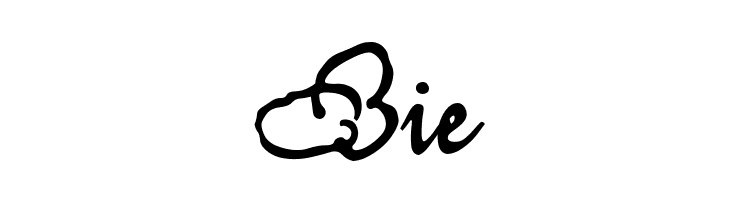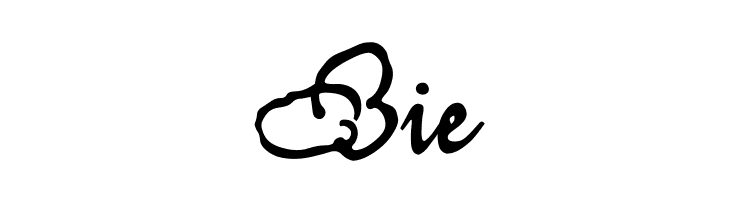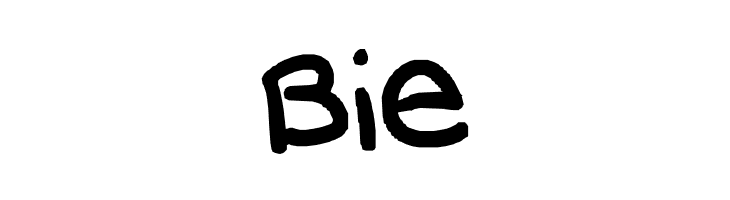
An ornate and decorative font with intricate loops and flourishes.
An ornate and artistic script font with flowing, interconnected letterforms.
A playful, garden-themed decorative font with a hand-drawn style.
A modern, bold sans-serif font with clean lines and high legibility.
A bold, distressed font with a vintage, textured appearance.
Whimsical, illustrated font with various quirky car drawings.
A decorative font with architectural motifs and bold, geometric letters.